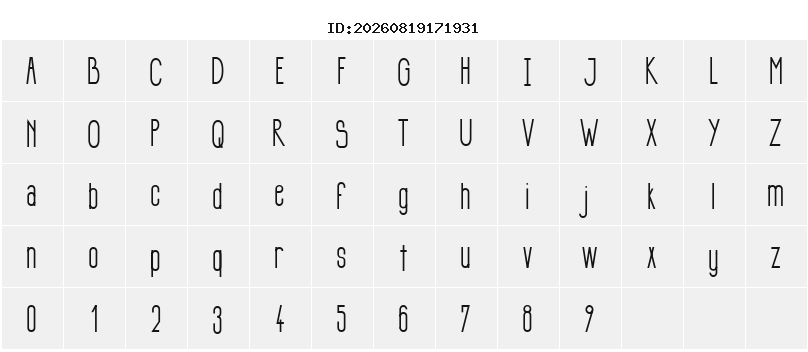
Si LuNcai Preview
• Font Name: Si LuNcai
• Designer: cenz qobbal
About Si LuNcai.ttf
Si LuNcai.ttf is a modern, elegant sans-serif font designed for ultimate readability and visual harmony. Perfect for branding, headlines, web design, and print materials.